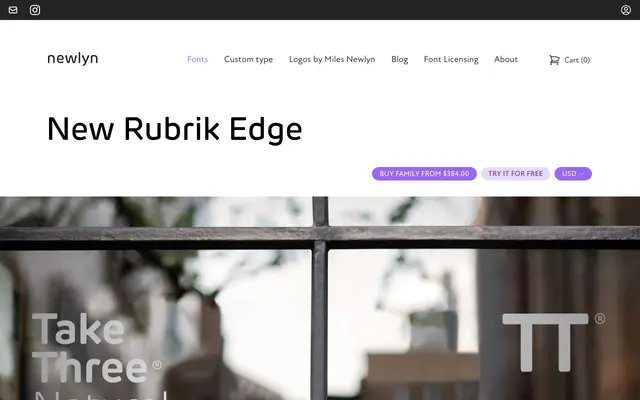
New Rubrik Edge Italic
A geometric sans-serif in seven weights with matching italics, distinguished by sharp edge detailing that gives it a harder character than its Rubrik siblings.
Part of Newlyn's New Rubrik collection, this variant introduces angular edge detailing across ExtraLight through ExtraBold, each weight paired with a corresponding italic. The family suits editorial and branding contexts where a clean geometric structure is needed with a slightly harder, more technical edge. Fourteen styles in total are available as OpenType fonts.
New Rubrik Edge is a geometric sans-serif with sharp, angular detailing implied by the 'Edge' designation, offering a clean structural base across seven weights with matching italics.